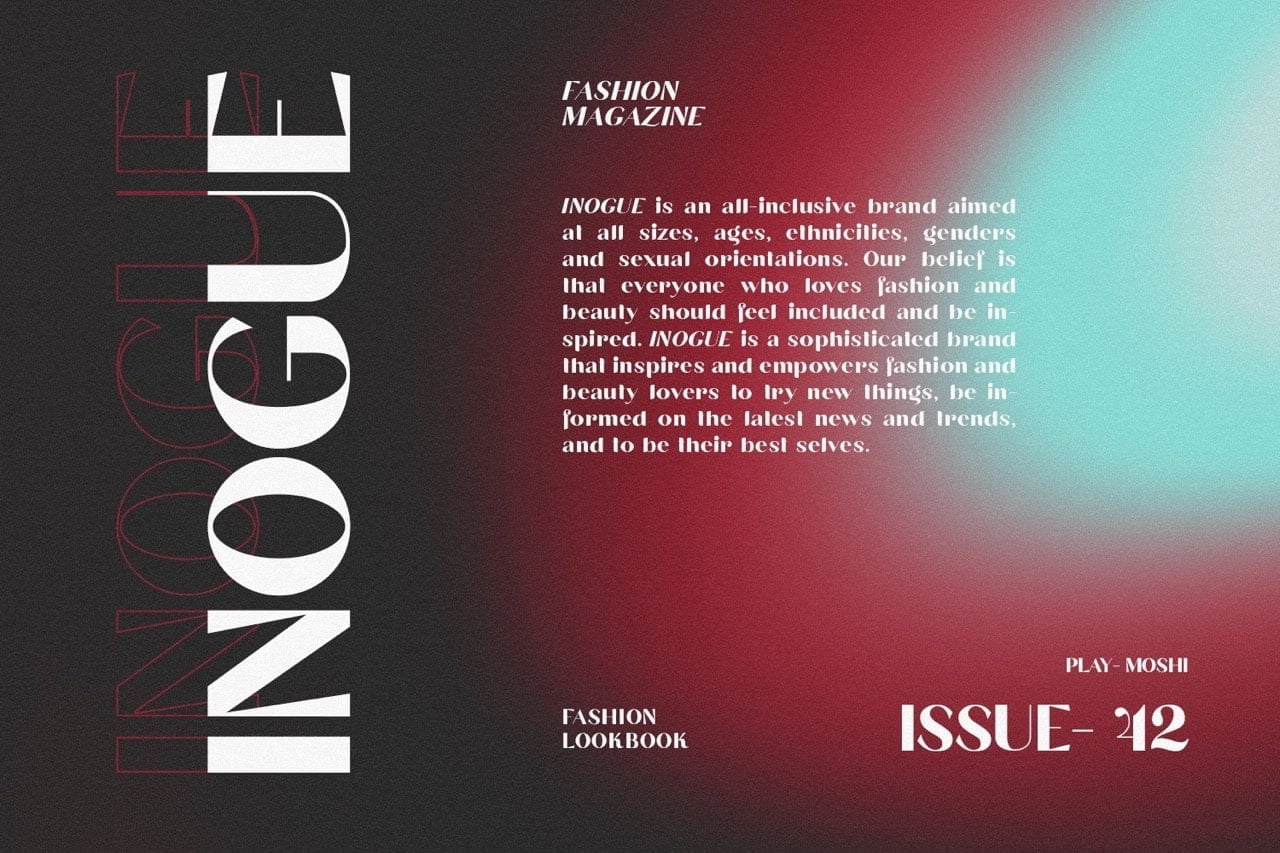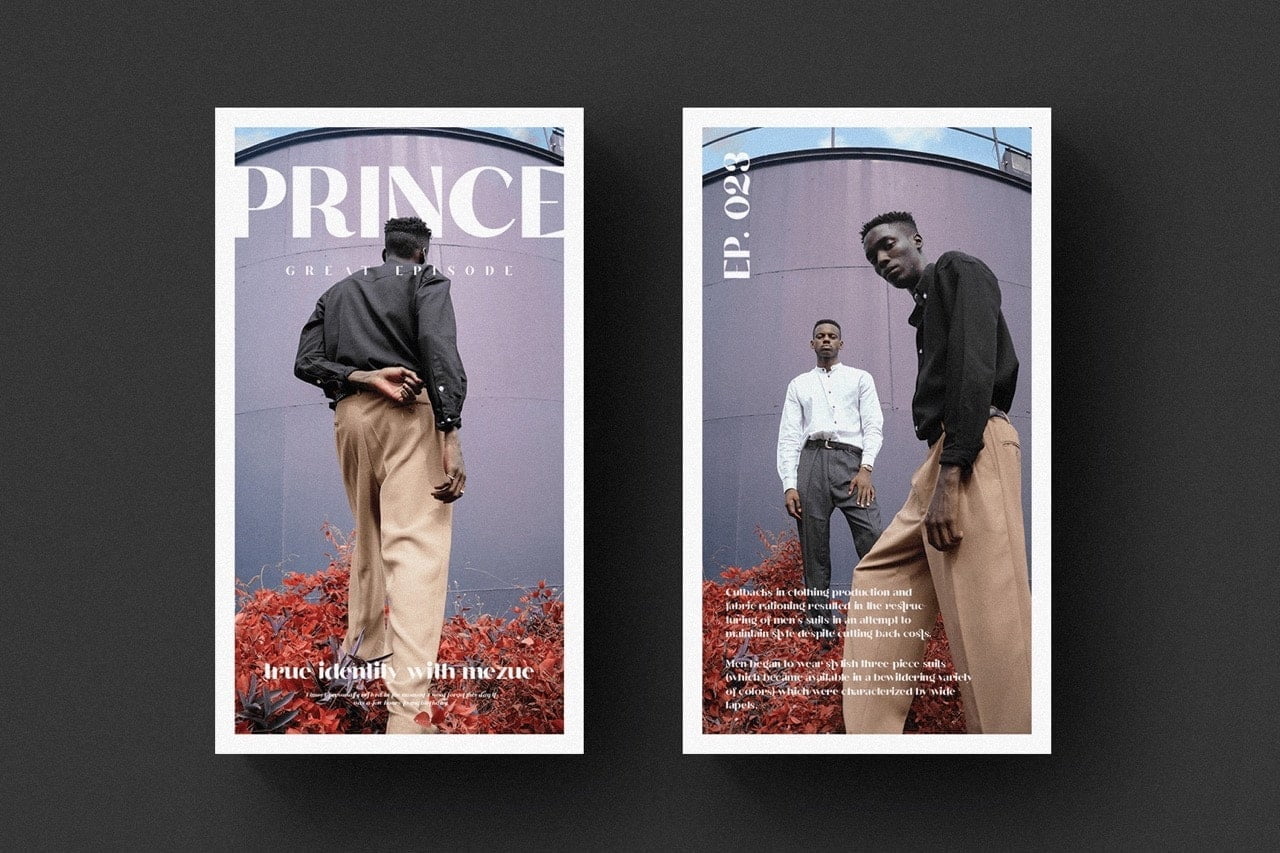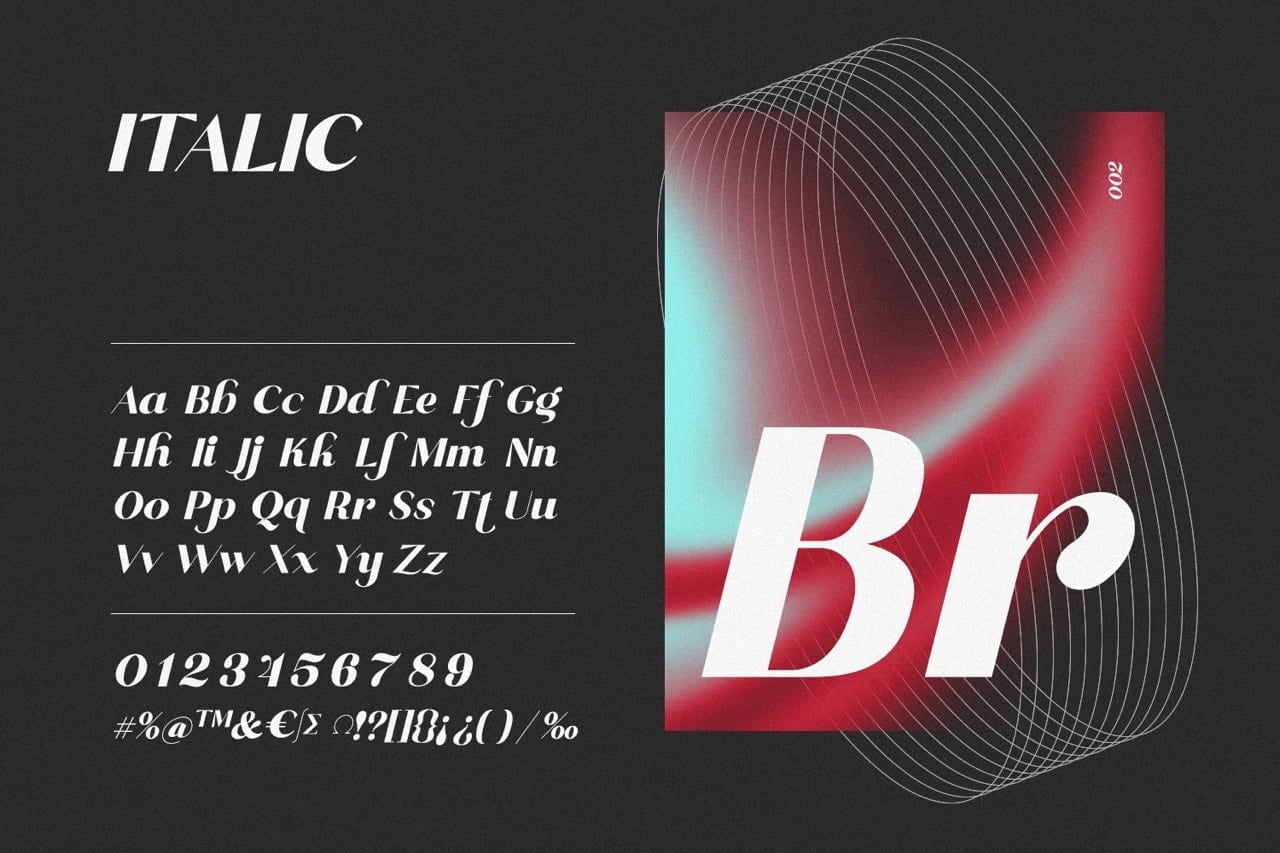
Brogi is designed to convey the sense of boldness and sophistication, while maintaining a subtle and discreet style. Brogi is ideal for logos and brand designs. Brogi exuded a sense of boldness within a confident sans serif font.
- 5 Weights
- 2 Styles (Regular and Italic)
- Stylistic Ligatures and Alternate Glyphs
Brogi Sans